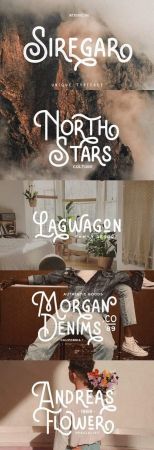
Introducing, Siregar Typeface. A vintage sans serif typeface. This item is really perfect for you who needs a typeface for especially logotype, apparel, invitation, branding, packaging, advertising etc.